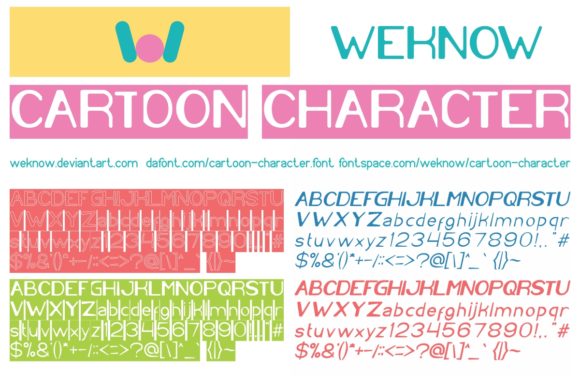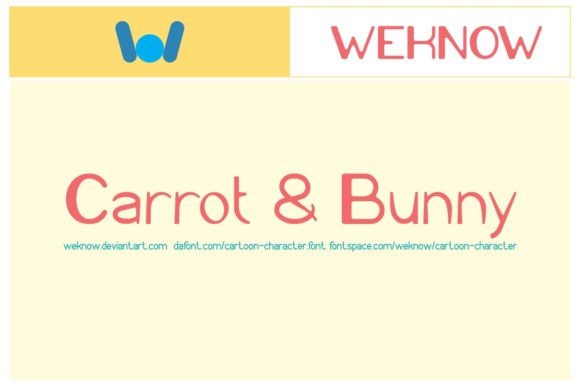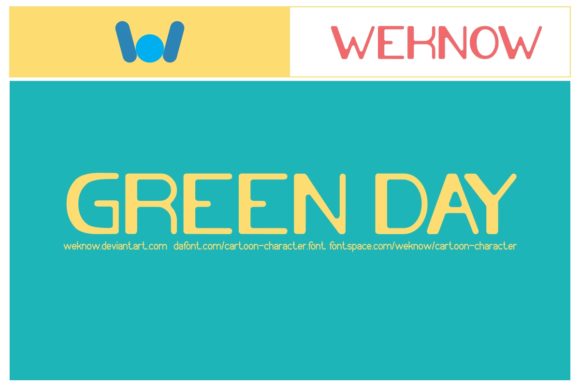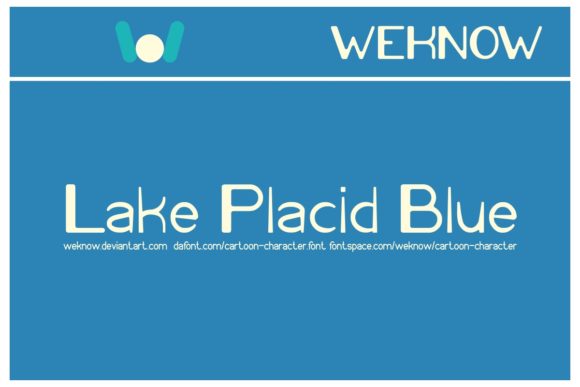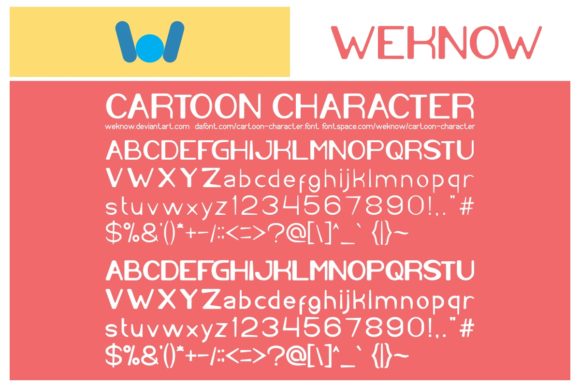
Introducing Cartoon Character Font: The Ultimate Display Font for Creative Projects
Are you a designer, crafter, or social media enthusiast looking for a font that can add a touch of playfulness and whimsy to your projects? Look no further than Cartoon Character Font! This simple and casual display font is perfect for a wide range of applications, from logos and branding to social media posts and craft projects. In this article, we’ll take a closer look at Cartoon Character Font and explore its features, benefits, and uses.
What is Cartoon Character Font?
Cartoon Character Font is a display font designed to evoke the feeling of classic cartoons and comics. It’s a clean and simple font with a undeniably clean feel, making it perfect for projects that require a playful and approachable tone. The font features rounded edges, soft curves, and a consistent thickness that gives it a friendly and approachable look.
Key Features of Cartoon Character Font
- Clean and Simple Design: Cartoon Character Font features a clean and simple design that’s easy to read and understand.
- Playful and Whimsical: The font has a playful and whimsical feel that’s perfect for projects that require a touch of humor and personality.
- Highly Versatile: Cartoon Character Font is highly versatile and can be used for a wide range of projects, from logos and branding to social media posts and craft projects.
- Easy to Read: The font is easy to read, even at small sizes, making it perfect for use in digital and print projects.
Benefits of Using Cartoon Character Font
So why should you use Cartoon Character Font for your projects? Here are just a few benefits of using this amazing font:
- Adds a Touch of Personality: Cartoon Character Font adds a touch of personality and whimsy to your projects, making them stand out from the crowd.
- Perfect for Kids and Adults Alike: The font is perfect for projects aimed at kids and adults alike, making it a great choice for family-friendly content.
- Easy to Pair with Other Fonts: Cartoon Character Font is easy to pair with other fonts, making it perfect for use in combination with other typography.
- Scalable and Versatile: The font is highly scalable and versatile, making it perfect for use in a wide range of projects, from business cards to billboards.
Use Cases for Cartoon Character Font
So what can you use Cartoon Character Font for? The possibilities are endless! Here are just a few ideas to get you started:
- Logos and Branding: Use Cartoon Character Font to create a fun and playful logo for your business or brand.
- Social Media Posts: Add a touch of personality to your social media posts with Cartoon Character Font.
- Craft Projects: Use Cartoon Character Font to add a touch of whimsy to your craft projects, such as handmade cards and invitations.
- Signs and Posters: Use Cartoon Character Font to create eye-catching signs and posters for your business or event.
In conclusion, Cartoon Character Font is a simple and casual display font that’s perfect for a wide range of creative projects. Its clean and simple design, playful and whimsical feel, and high versatility make it a great choice for designers, crafters, and social media enthusiasts alike. Whether you’re looking to add a touch of personality to your logos and branding, social media posts, craft projects, or signs and posters, Cartoon Character Font is the perfect choice. So why wait? Download Cartoon Character Font today and start creating!